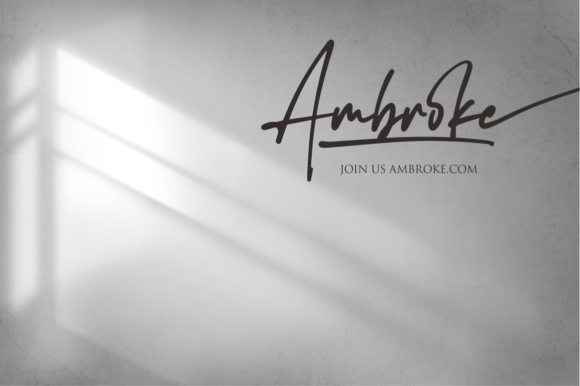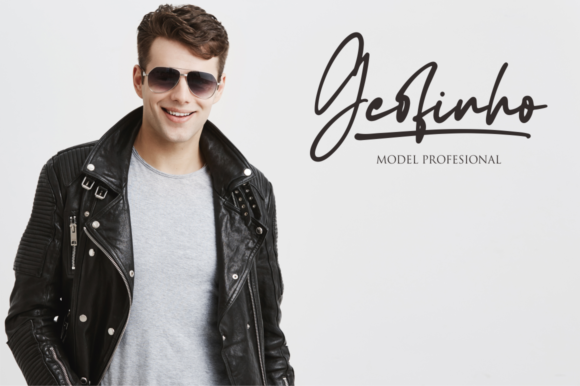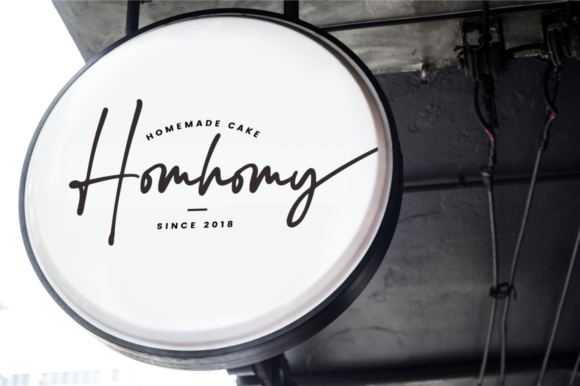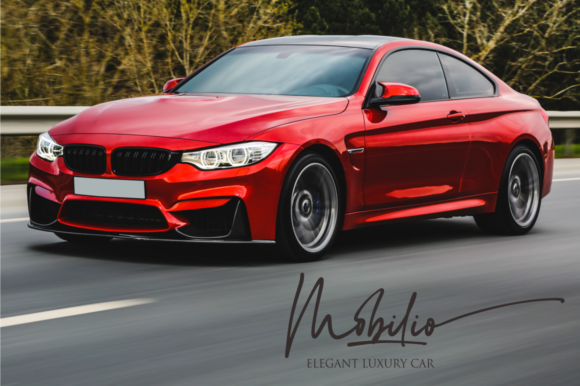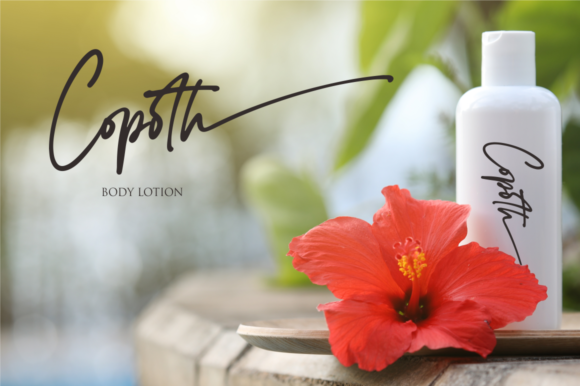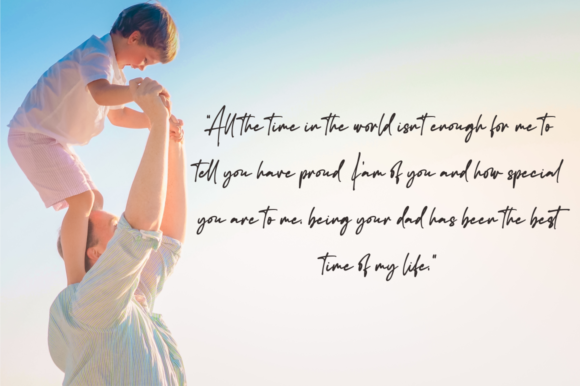
Introduction to Maradona Signature Font
Maradona Signature is a well crafted, ravishing and fancy handwritten font.
Its characters flow easily and it is most certainly going to fit a wide range of design ideas Maradona Signature is PUA encoded which means you can access all of the glyphs and swashes with ease.